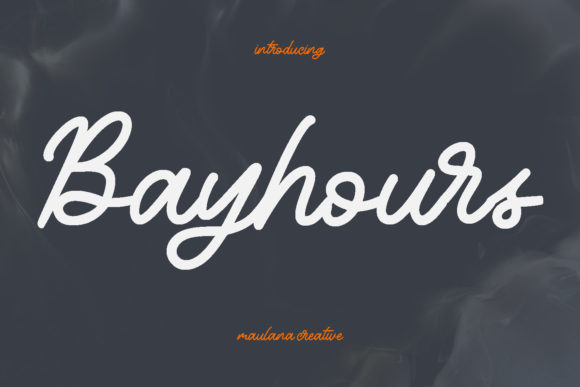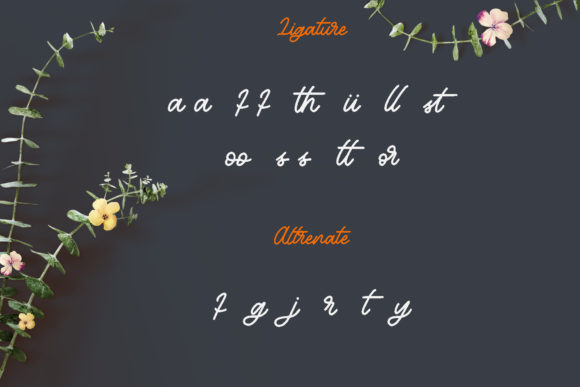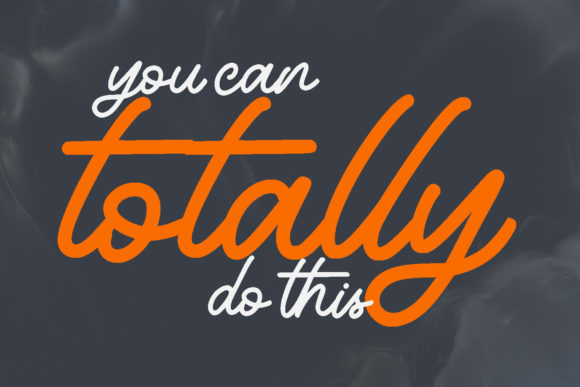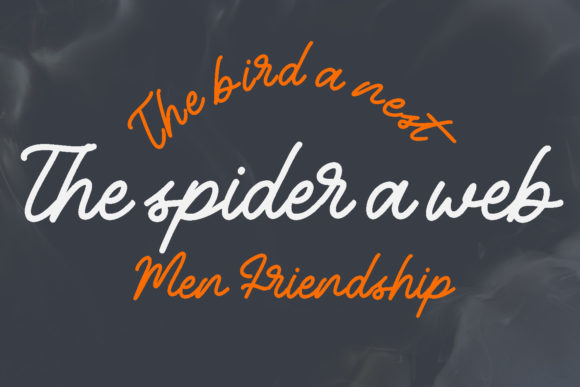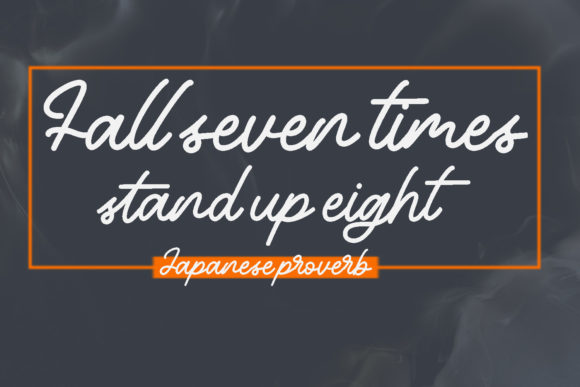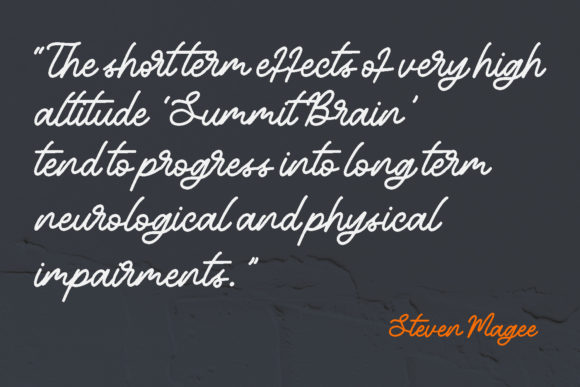
Bayhours Font
About Bayhours Font
Bayhours is a cursive and vintage styled script font. It features mono-line strokes, fun characters, ligatures and alternates. You can use it for various projects, such as blog posts, logos, branding, ads, invitations, greeting cards, planners, photo albums, decorations, and much more.